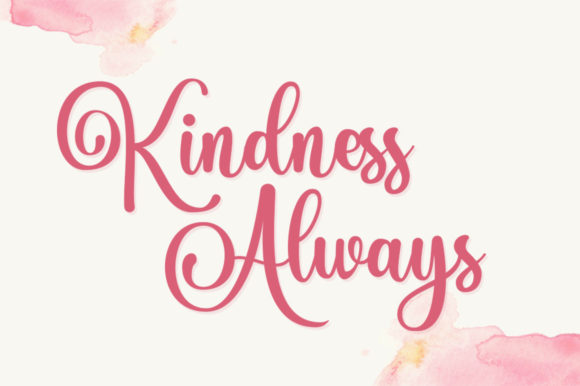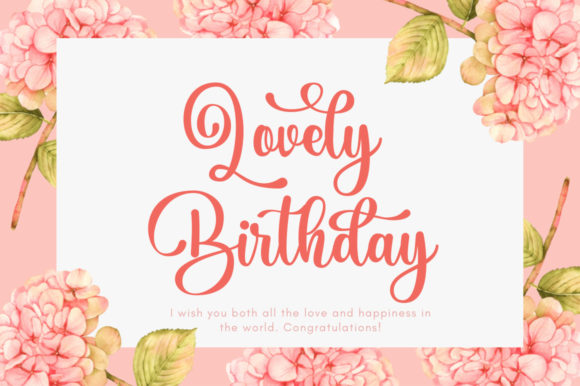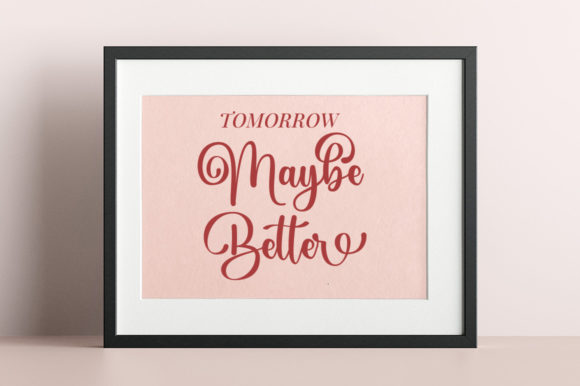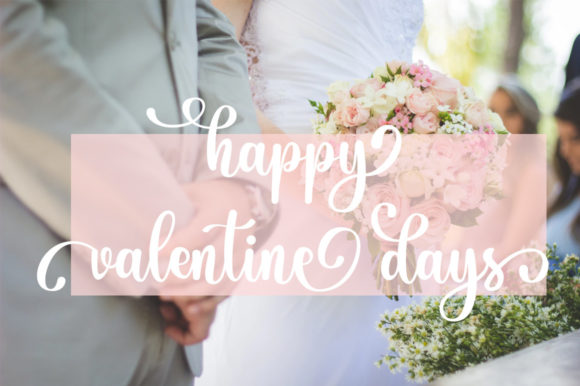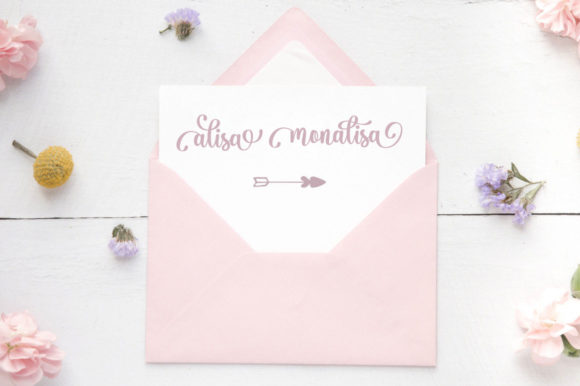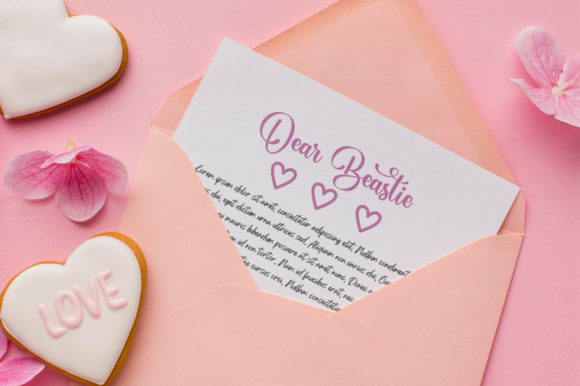
Discover the Elegance of Hairley Angela Font: Elevate Your Designs with this Stunning Script Font
Are you on the hunt for a font that exudes elegance, sophistication, and romance? Look no further than the Hairley Angela Font. This beautiful script font is perfect for designers and crafters seeking to add a touch of luxury to their creations. With its ravishing style and versatility, Hairley Angela is sure to become your go-to font for a wide range of projects.
A Font that Speaks Elegance
Hairley Angela is a graceful script font that boasts a unique and captivating style. Its flowing lines, delicate curves, and intricate details make it an ideal choice for designs that require a touch of sophistication. Whether you’re creating wedding invitations, stationery, social media posts, or any other type of visual content, Hairley Angela is sure to impress.
One of the best things about Hairley Angela is its versatility. This font can be used for a wide range of projects, including:
- Wedding invitations and stationery: Create beautiful and elegant wedding invites, save-the-date cards, and thank-you notes that will leave a lasting impression on your guests.
- Social media posts: Elevate your social media game with stunning posts that feature Hairley Angela’s elegant script.
- Stationery art: Design gorgeous notebooks, journals, and planners that showcase the font’s beauty.
- Branding and packaging: Use Hairley Angela to create luxurious brand identities and packaging designs that exude high-end quality.
Hairley Angela is PUA (Private Use Area) encoded, which means that you can access all glyphs and swashes with ease. This feature allows you to unlock the full potential of the font and experiment with different styles and combinations. With PUA encoding, you can:
- Access a wide range of glyphs and swashes to add variety to your designs.
- Experiment with different font combinations to create unique and eye-catching designs.
- Save time and effort by having all the font’s features at your fingertips.
Why Choose Hairley Angela Font?
So, why should you choose Hairley Angela for your next design project? Here are just a few reasons:
- Elegant and sophisticated style: Hairley Angela’s unique script font is sure to add a touch of luxury to any design.
- Versatility: This font can be used for a wide range of projects, from wedding invitations to social media posts.
- PUA encoded: With PUA encoding, you can access all glyphs and swashes with ease, giving you endless creative possibilities.
If you’re looking for a font that will take your designs to the next level, look no further than Hairley Angela. With its stunning script style, versatility, and PUA encoding, this font is sure to become a staple in your design arsenal. So, what are you waiting for? Download Hairley Angela today and start creating gorgeous designs that will leave a lasting impression.
In conclusion, Hairley Angela is a must-have font for designers and crafters seeking to add a touch of elegance and sophistication to their creations. With its beautiful script style, versatility, and PUA encoding, this font is sure to inspire and elevate your designs. So, don’t miss out on this amazing opportunity to take your designs to new heights. Get Hairley Angela today and start creating stunning visual content that will leave a lasting impression.